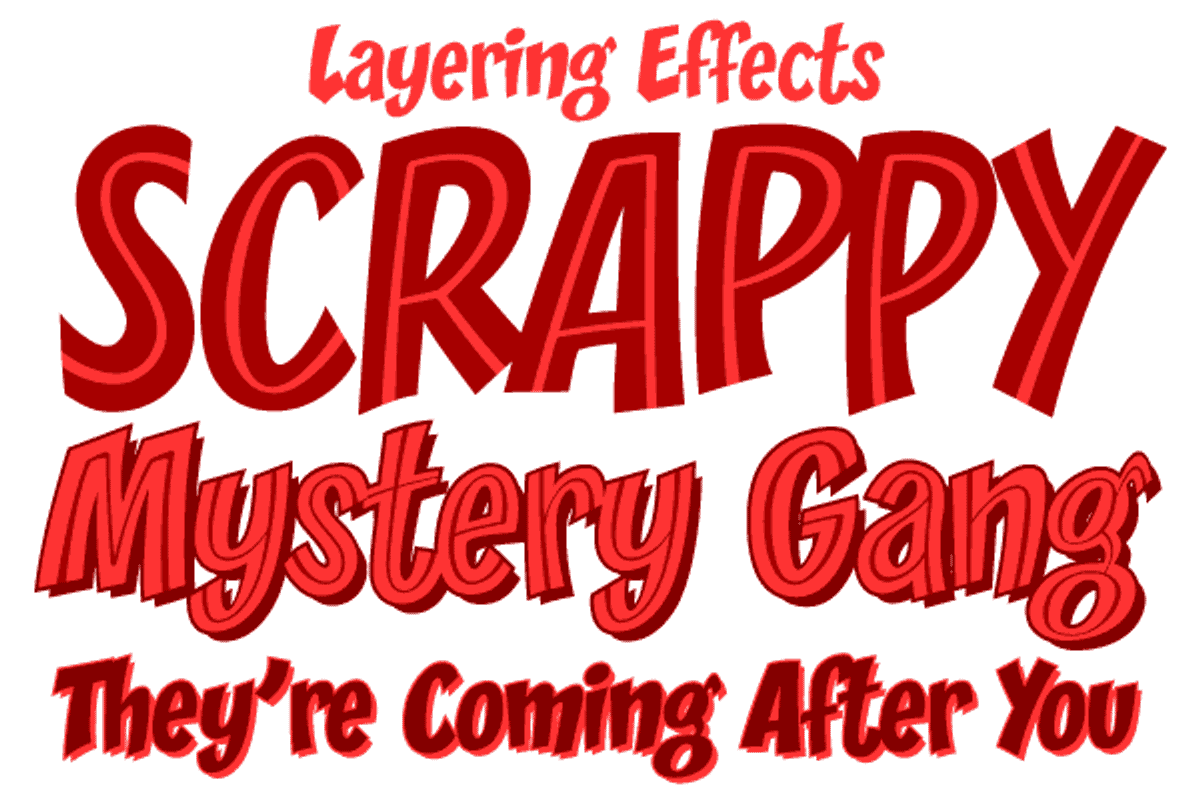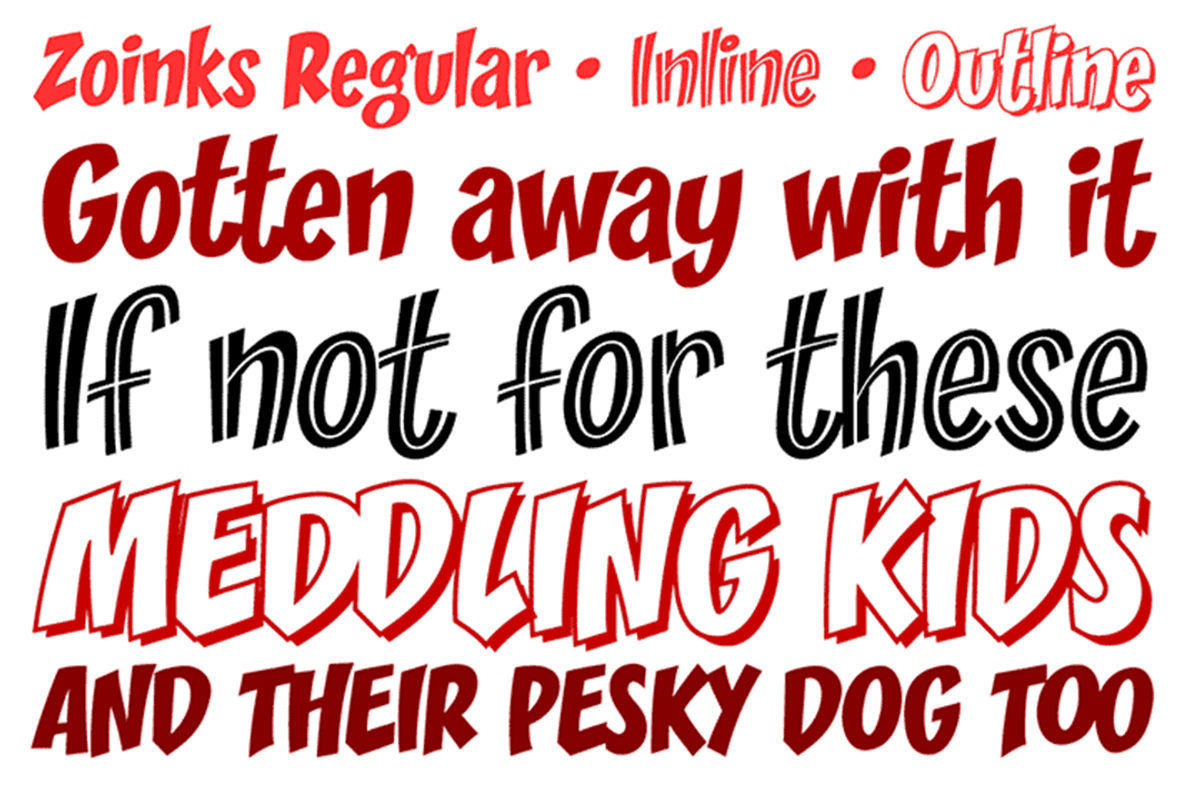
Zoinks - a bouncy fun comic font
Zoinks - a bouncy fun comic font by Comicraft Fonts is a font selected for branding, posters, packaging, typography.
Why Zoinks - a bouncy fun comic font is worth a look
Zoinks - a bouncy fun comic font by Comicraft Fonts fits naturally into Branding, posters, packaging, typography.